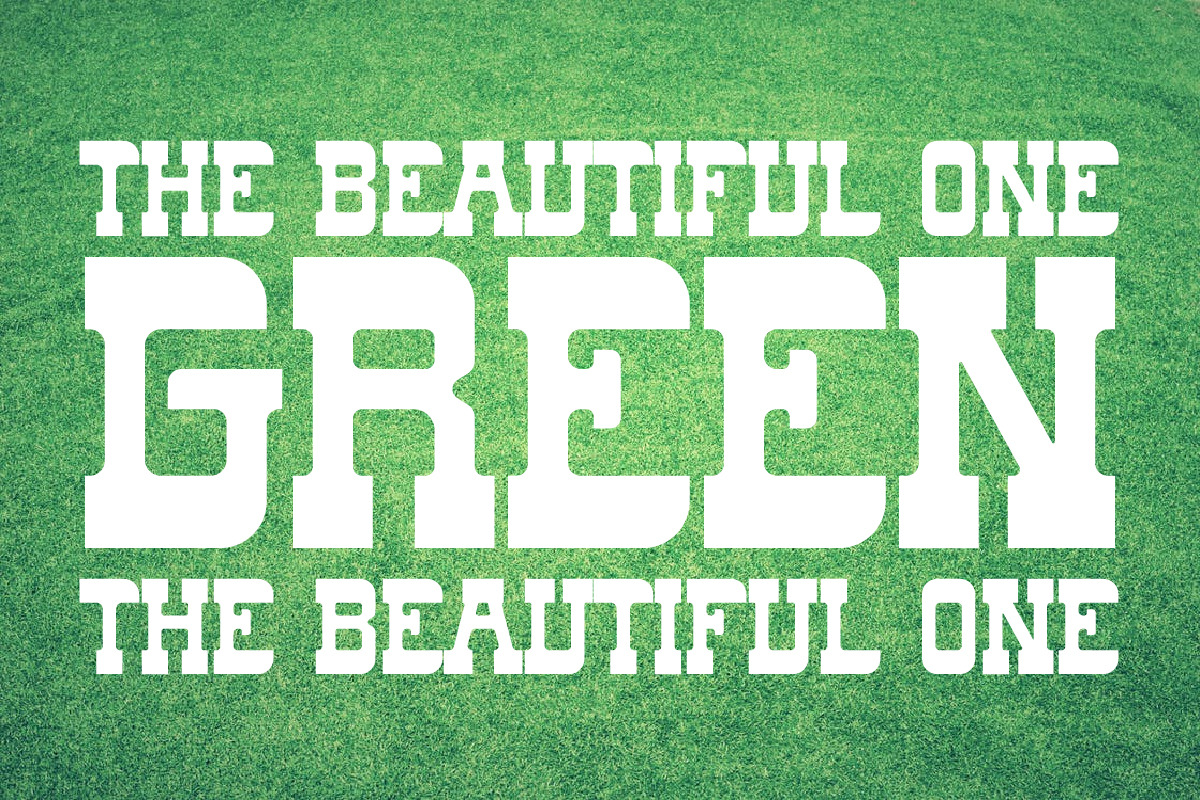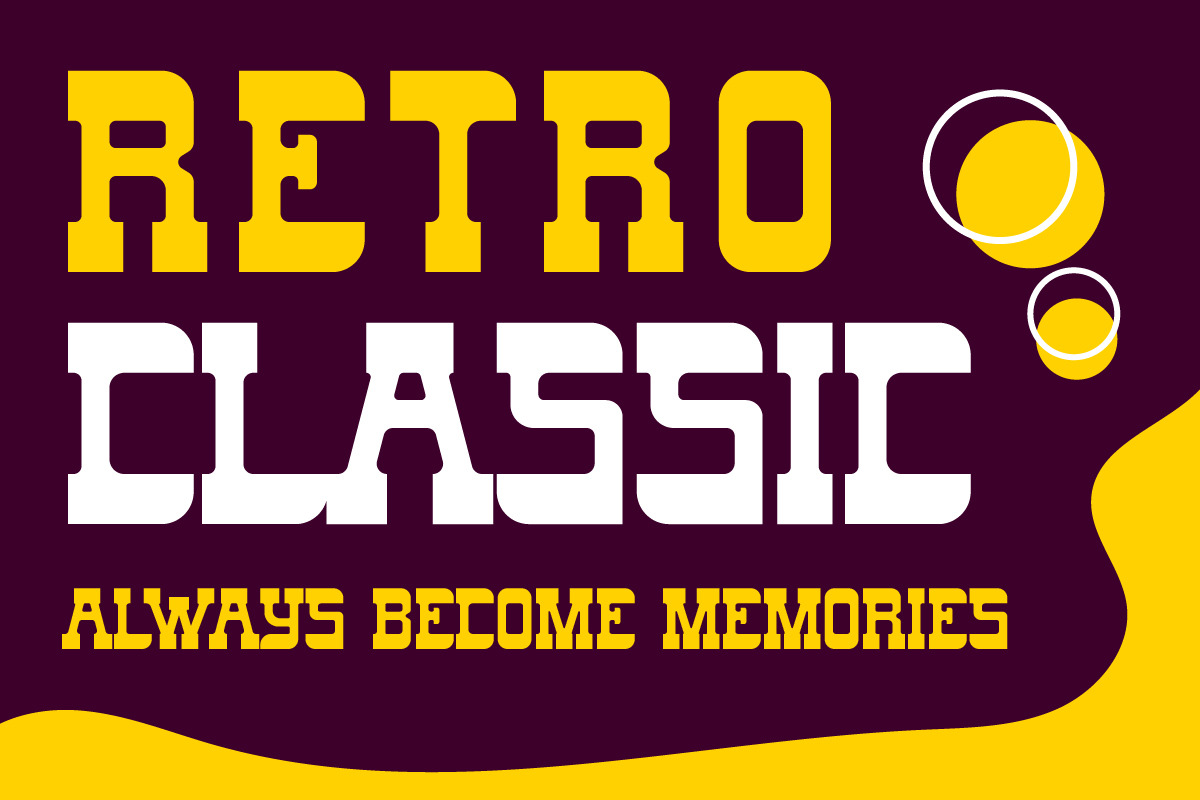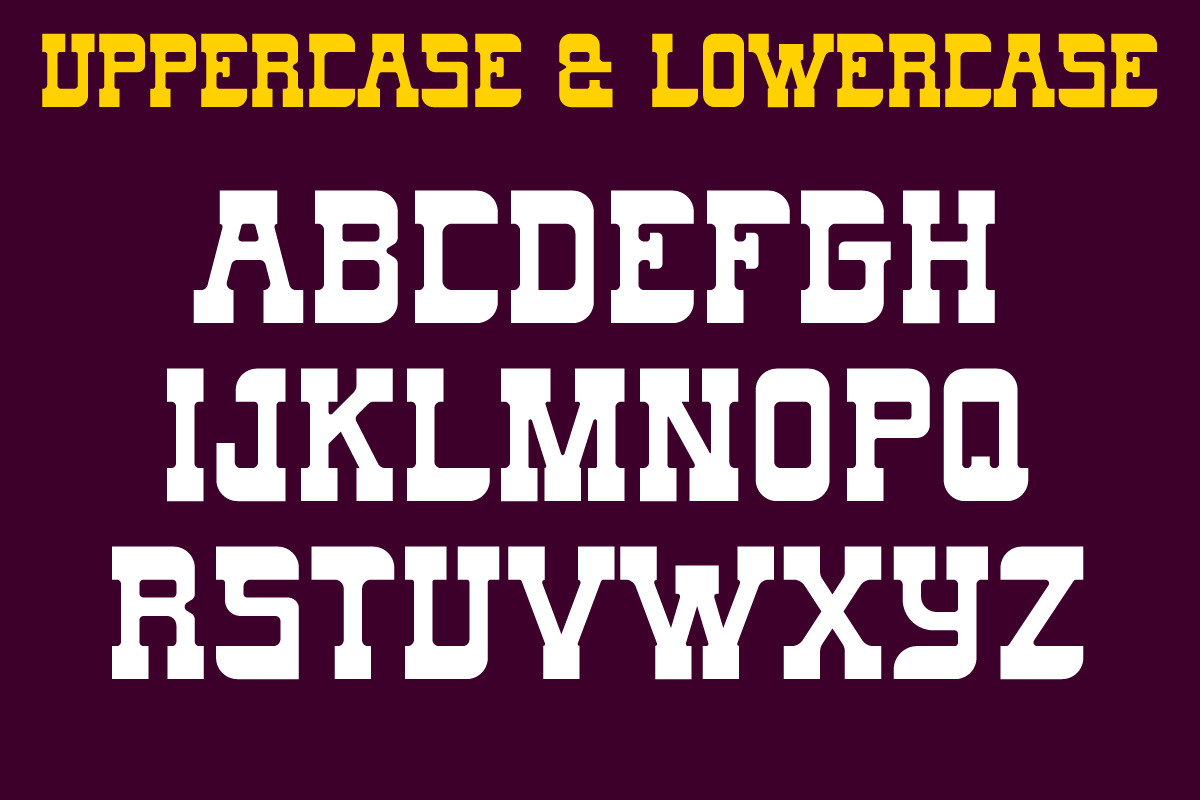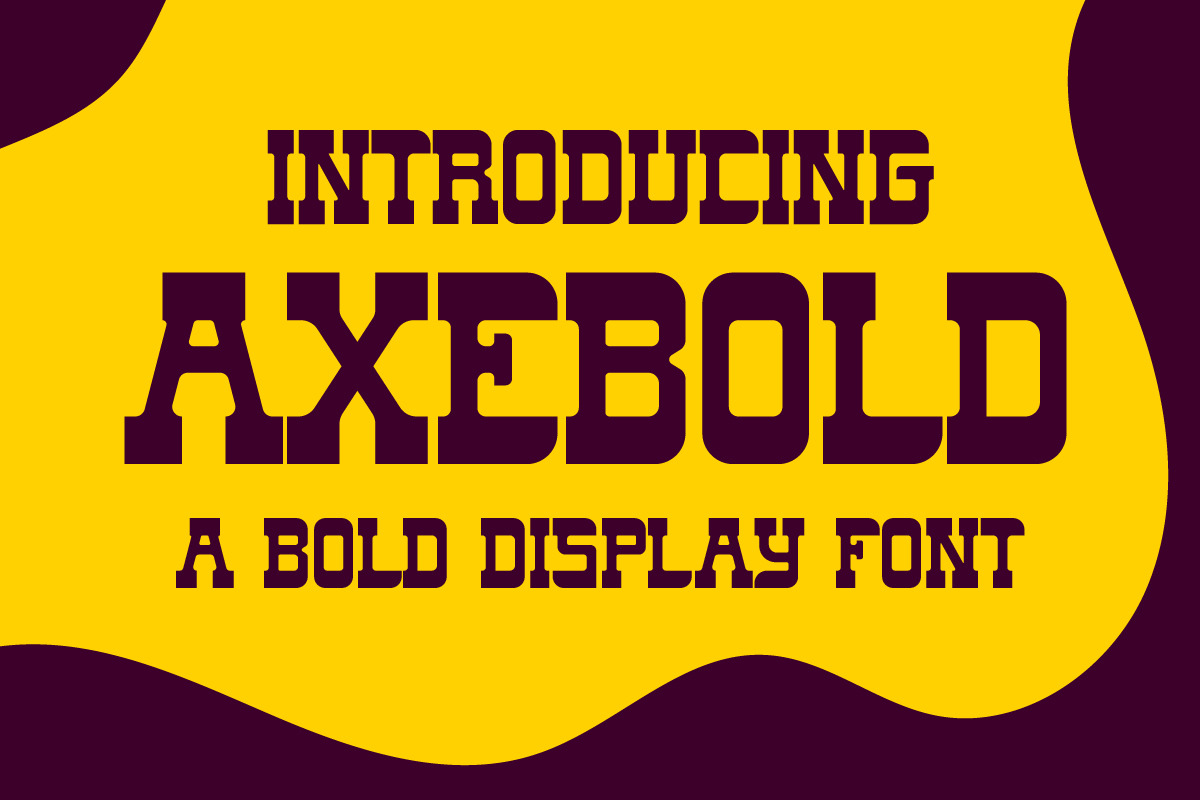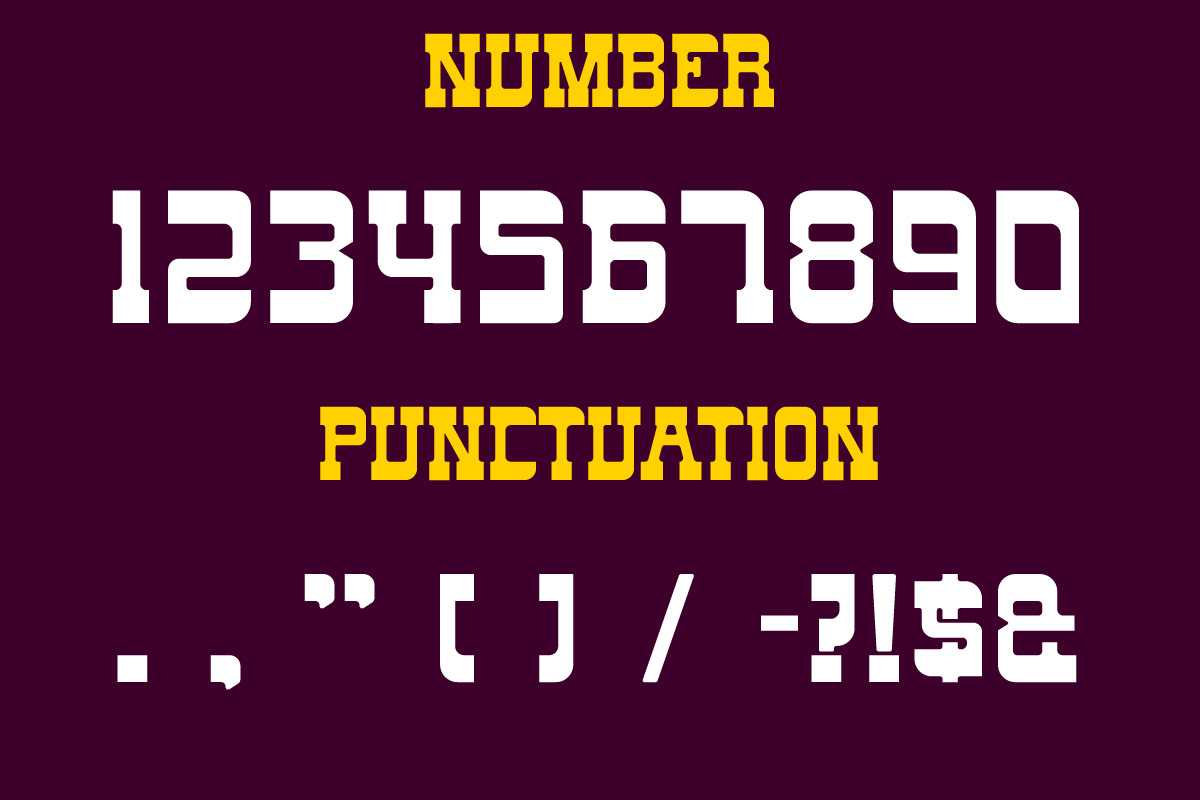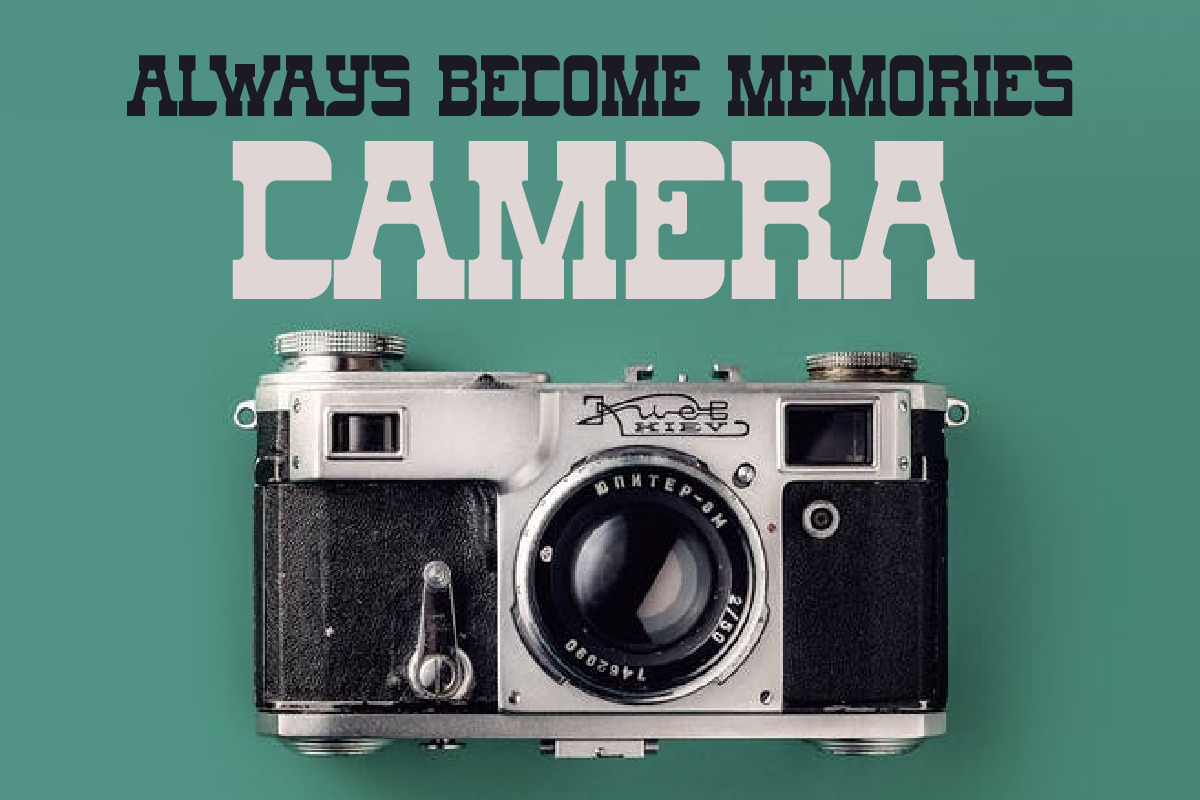
Axebold a Bold Display Font
font is our new item that suitable for your Posters.
Great for Logo, Poster, Sticker, Jersey, Invitation Card, Brochure, etc.